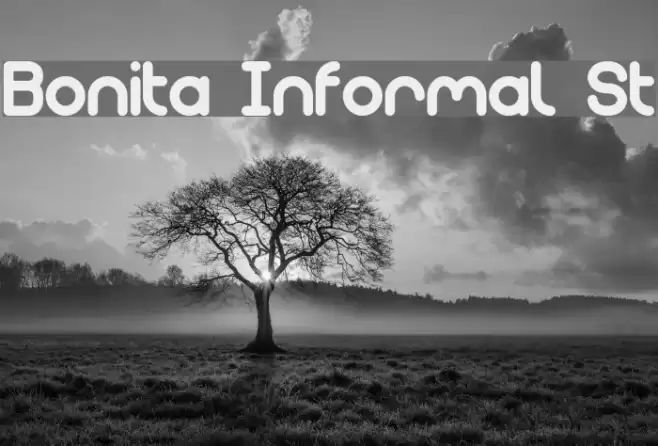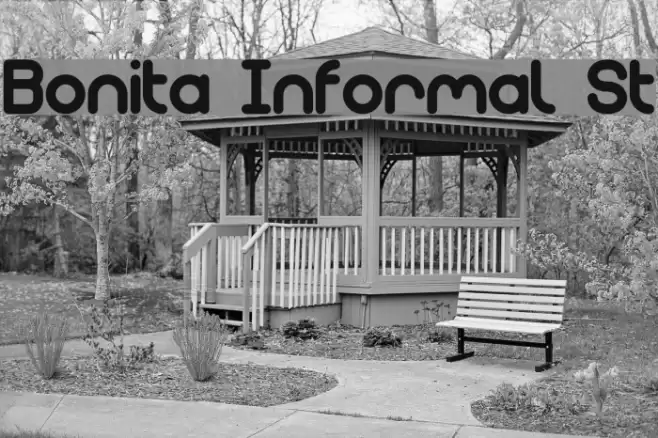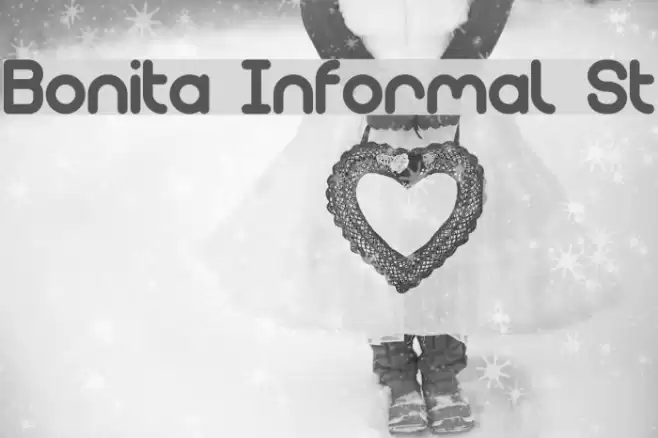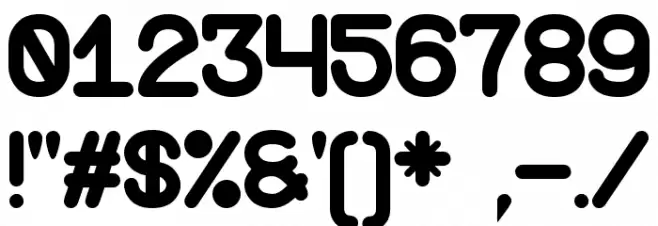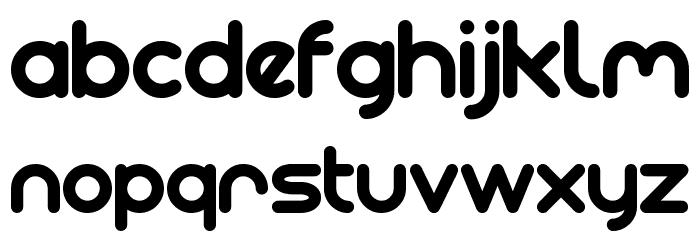
Bonita Informal St Font
Bonita Informal St Description
This font features a playful and informal style with rounded edges and a bold appearance. The characters are evenly spaced, providing a balanced and approachable look. The uppercase and lowercase letters maintain a consistent design, with smooth curves and a friendly demeanor. Numbers and special characters are designed to match the overall aesthetic, making them suitable for a variety of uses. The font's unique style is both modern and slightly whimsical, making it ideal for projects that require a touch of personality and flair.
A playful, rounded, and bold font with a modern and informal style from Uncategorized fonts.
- Proposed Projects: Ideal for children's books, casual branding, playful posters, and social media graphics.
- Overall Style: Playful and Modern